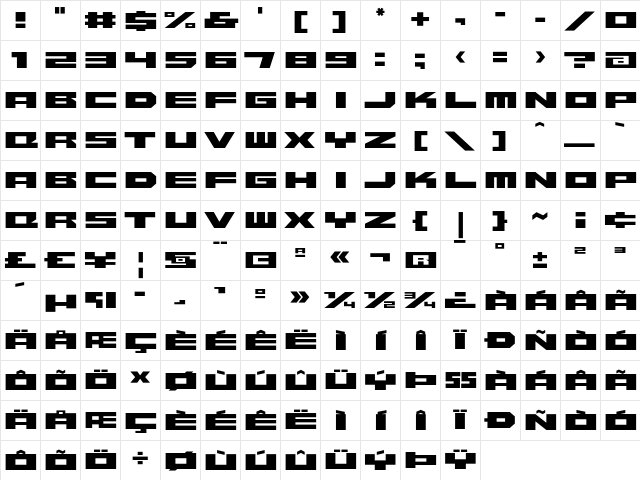
Beekman-SquareRegular Free Font
Beekman-SquareRegular Regular
Design Context for Beekman-SquareRegular
Beekman-SquareRegular is a composed and adaptable typeface that performs quietly and consistently across a wide range of design contexts.